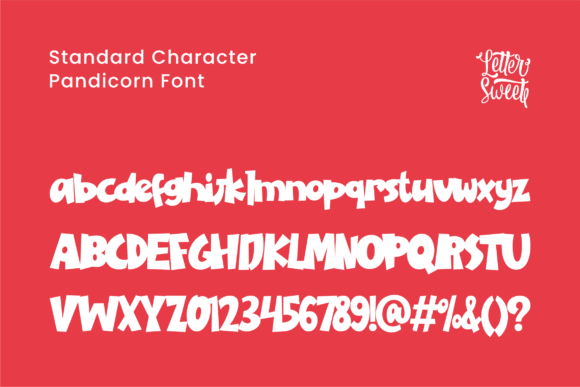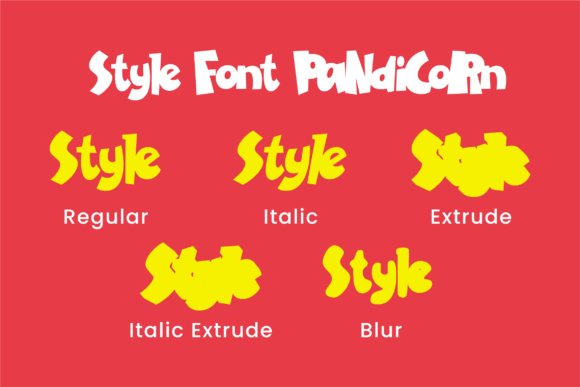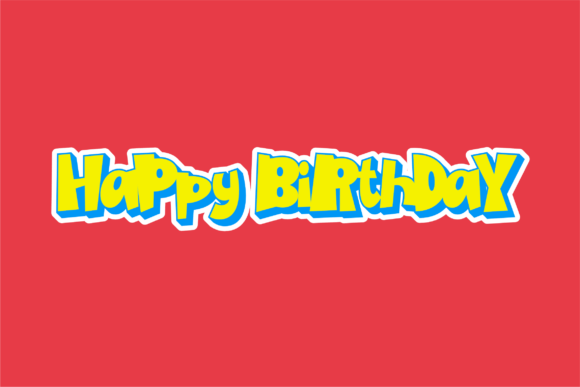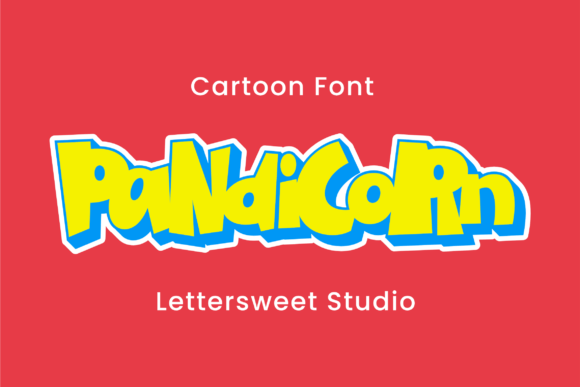
Introduction to Pandicorn Font
Pandicorn is a cheerful and imaginative cartoon font designed specifically for children’s projects.
Its playful curves and bold colors capture the fun and wonder of childhood Perfect for creating eye-catching logos, posters, and illustrations for children’s products, video games, and more.
Pandicorn Font offers exceptional quality and versatility, making it a valuable addition to your design toolkit. Whether you’re creating for personal projects or commercial use, Pandicorn Font delivers professional results.